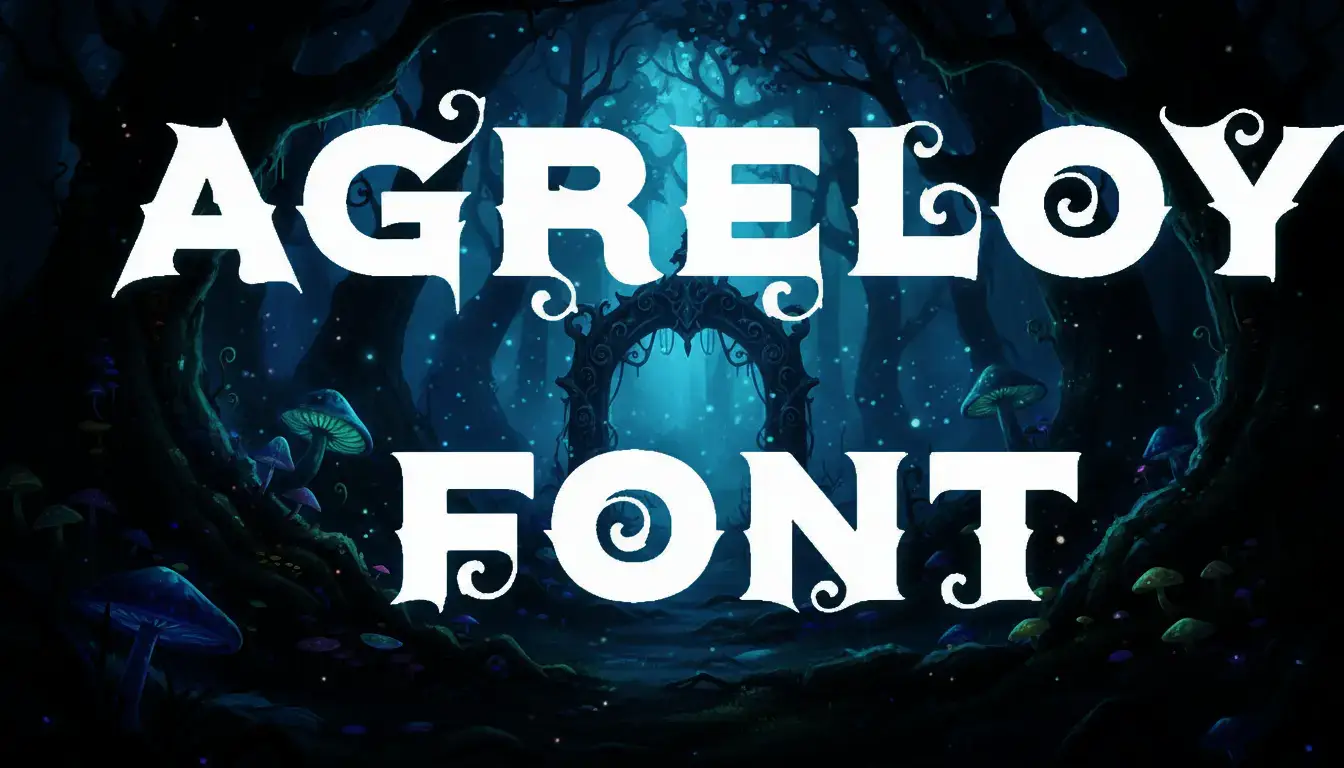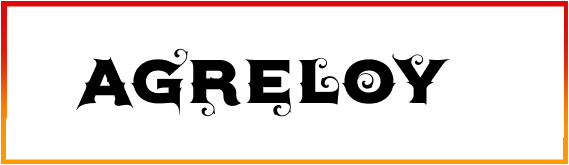
Agreloy Font
Agreloy is a fancy font made by gluk. Bold and full of character, it's built to stand out rather than blend in. You can download it for free and test it with your own words in the preview above.
What You Can Type With Agreloy
Agreloy covers the full alphabet in upper and lowercase, plus all ten numbers, so you can set names, dates and prices without switching fonts. Everyday marks like &, !, ? and @ are there too. Thanks to its accented letters, it also works for Spanish, French, German, Portuguese and Italian, not just English.
Where Agreloy Works Best
Agreloy is a natural fit for posters, logos and eye-catching headlines. Use it for one standout word or headline and let simpler fonts handle the rest.
Does Agreloy support accented letters?
Yes. Agreloy includes the accented letters needed for Spanish, French, German, Portuguese and Italian, so it works for more than just English.